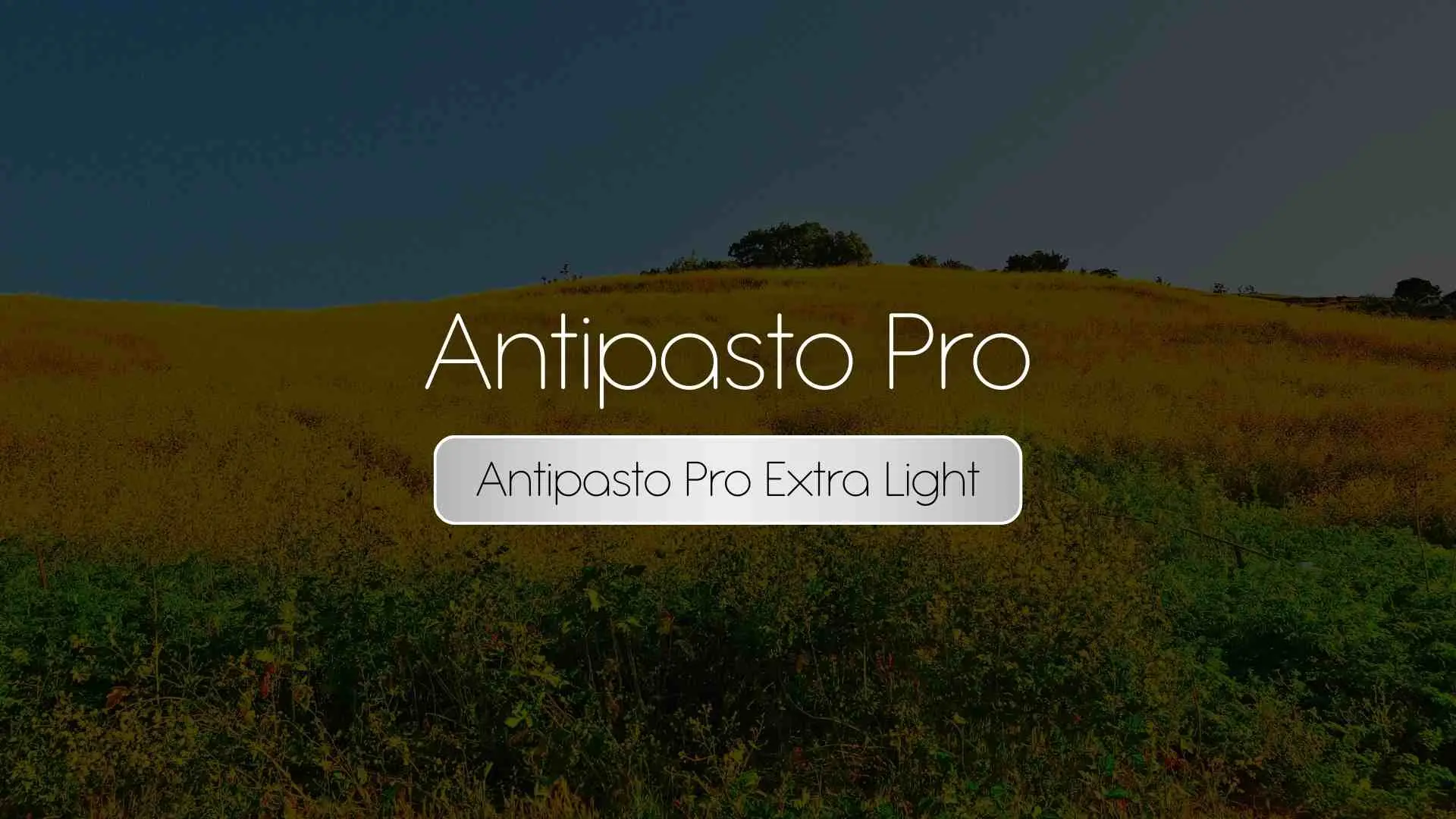
Antipasto Pro Extra Light
Antipasto Pro Extra Light Font
The font Antipasto Pro Extra Light, designed by Zetafonts, falls under the Sans Serif category & Antipasto Pro font family. Its smooth, flowing letterforms make it a versatile choice for projects that require both elegance and readability. Antipasto Pro is particularly well-suited for App design, Advertising, Headlines and Social Media, Academic and Historical Research and Branding and Logos. With its balance of simplicity and decorative appeal, this font brings a polished touch to both personal and professional designs.